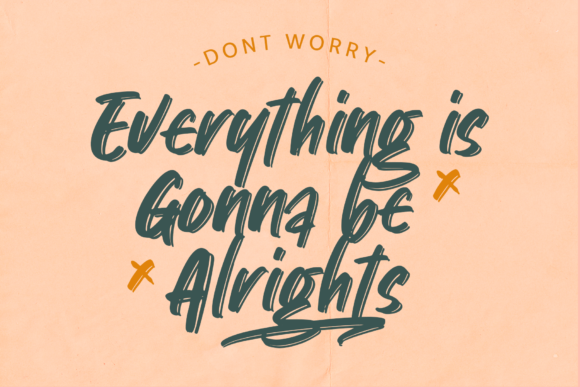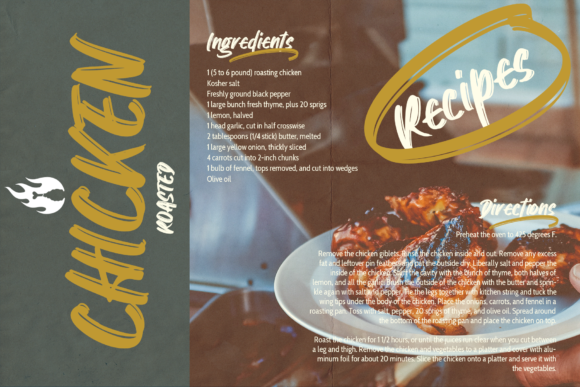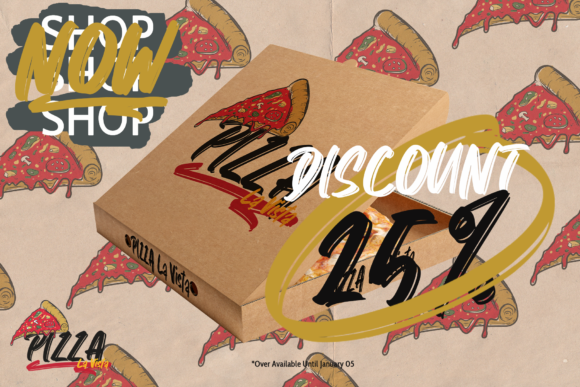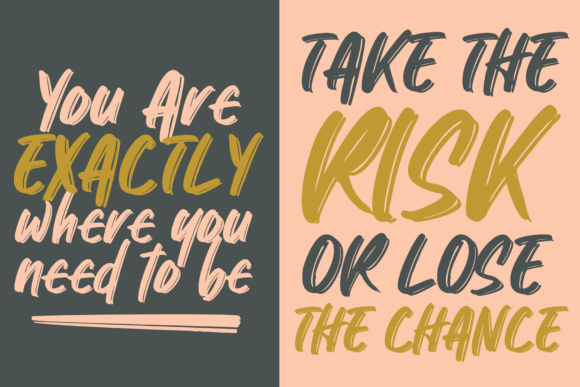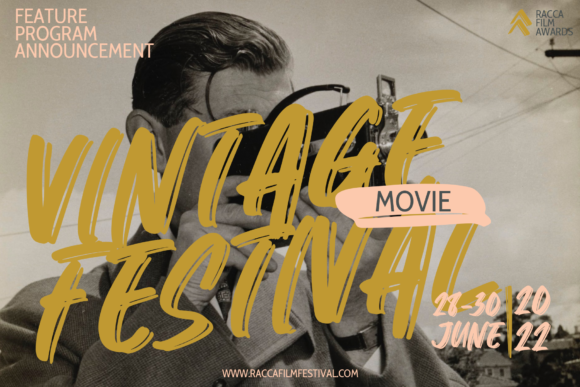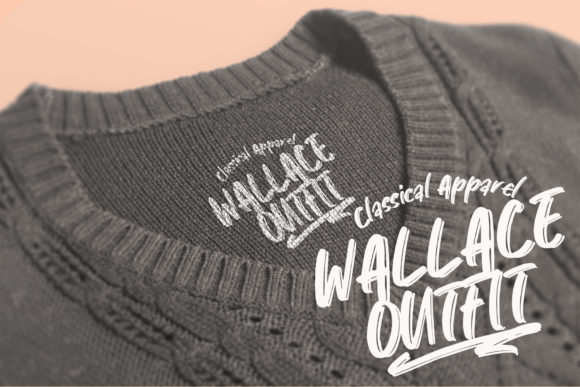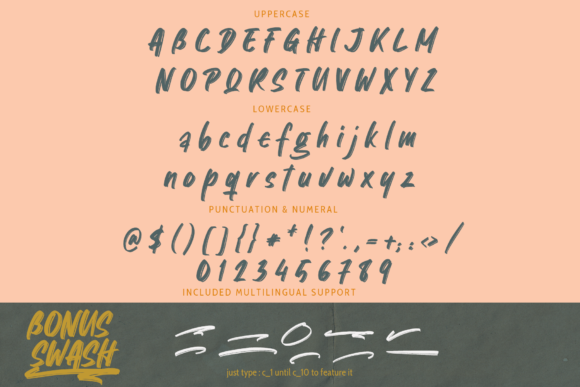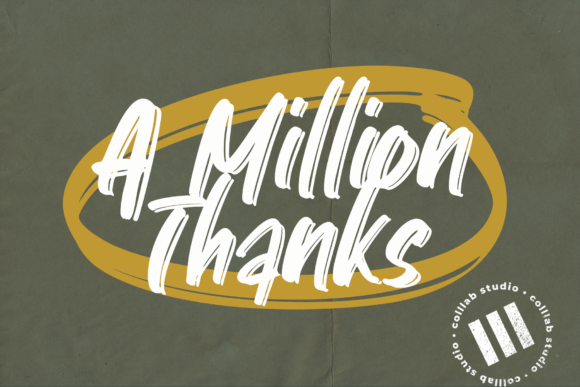
Old Stringrays Font
About Old Stringrays Font
Old Stringrays sounds like a wonderful and versatile handwritten font that can add a touch of elegance and beauty to various design projects. With its flowing and lovely style, there are endless creative possibilities for using Old Stringrays in your designs. Here are some ideas on how to make the most of this charming font:
1. Wedding Invitations: Design romantic and captivating wedding invitations using Old Stringrays font to set the tone for a memorable and special event.
2. Stationery Art: Create beautiful and personalized stationery art, including notepads, letterheads, and thank-you cards, with Old Stringrays font for a graceful touch.
3. Social Media Posts: Use Old Stringrays to design eye-catching social media graphics with quotes, messages, or announcements to engage your audience.
4. Greeting Cards: Design lovely greeting cards for various occasions, such as birthdays, anniversaries, or holidays, using Old Stringrays font for a heartfelt and warm feel.
5. Branding Materials: Incorporate Old Stringrays font into branding materials like logos, business cards, and packaging to add an elegant and unique flair.
6. Blog Headers: Use Old Stringrays font for blog headers and titles to create a cohesive and inviting look for your blog.
7. Art Prints: Create beautiful art prints featuring quotes, illustrations, or watercolor designs using Old Stringrays font for a touch of sophistication.
8. Beauty and Fashion Labels: Design stylish and elegant labels for beauty or fashion products using Old Stringrays font for a luxurious feel.
9. Book Covers: Apply Old Stringrays font to book covers, especially for romance, self-help, or inspirational genres, to make them visually appealing.
10. Social Media Covers: Create captivating social media covers or banners with Old Stringrays font to represent your brand or showcase your work.
11. Photography Watermarks: Use Old Stringrays font as a watermark on your photography to add a touch of artistry and elegance.
12. Event Programs: Design event programs, such as for weddings or parties, using Old Stringrays font for an exquisite and timeless look.
13. Menu Cards: Create elegant and stylish menu cards for restaurants or special events with Old Stringrays font for a sophisticated touch.
14. Gift Tags: Design personalized and charming gift tags using Old Stringrays font for a thoughtful and delightful finishing touch to presents.
15. Personalized Gifts: Apply Old Stringrays font to design personalized gifts like mugs, notebooks, or phone cases for your loved ones.
16. Inspirational Posters: Use Old Stringrays font to create inspirational posters or prints for home decor or office spaces.
17. Digital Scrapbooking: Incorporate Old Stringrays font into digital scrapbooking layouts for preserving memories in a graceful and captivating way.
18. Blog Post Graphics: Design eye-catching blog post graphics using Old Stringrays font to make your content visually appealing and inviting.
19. Web Banners: Create attractive web banners or promotional graphics with Old Stringrays font for your website or online shop.
20. DIY Craft Projects: Use Old Stringrays font to add handwritten elements to various DIY craft projects, such as handmade journals or scrapbooks.
In summary, Old Stringrays’ lovely and flowing style offers a wide range of creative opportunities to add elegance and beauty to your designs. From wedding invitations to social media graphics, from stationery art to personalized gifts, Old Stringrays’ versatility and charm can elevate various projects and create stunning and eye-catching designs. Embrace the enchanting nature of Old Stringrays and let its unique design bring a touch of sophistication to your creative endeavors!